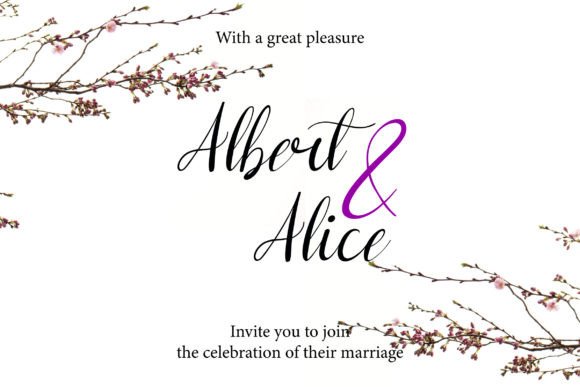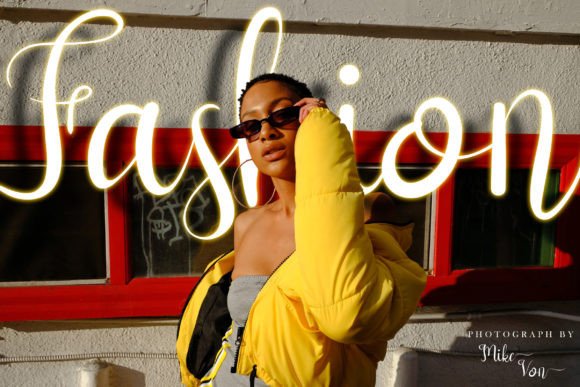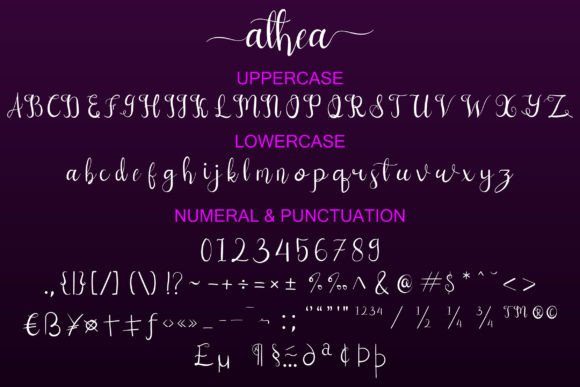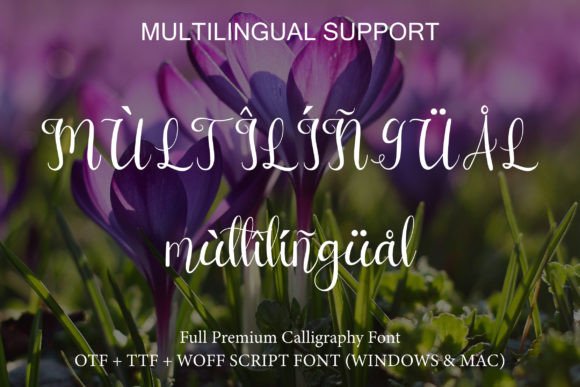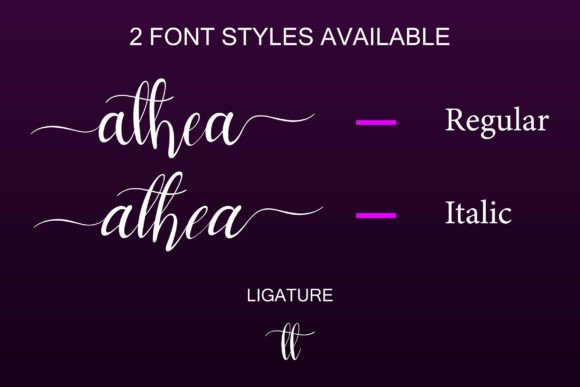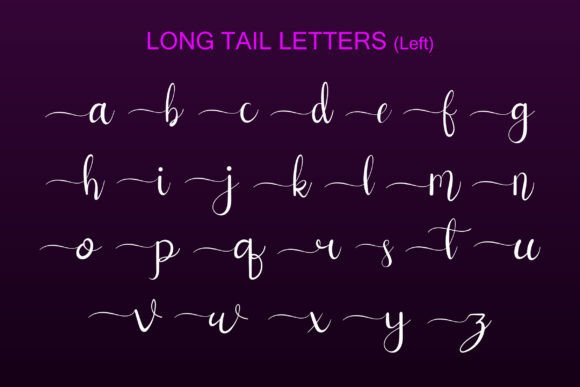
Unleash the Beauty of Handwritten Charm
Have you ever found yourself sitting at your desk, surrounded by papers, pens, and paint, feeling utterly inspired to create something beautiful? For designers, this moment is the spark that sets off a chain reaction of creativity. It’s the moment when the blank page transforms into a canvas waiting to be filled with love, care, and attention to detail.
That’s exactly what the Athea Font is all about – capturing the essence of feminine handwriting and infusing it into your designs. This modern calligraphy script font is perfect for creating lovely, romantic designs that exude warmth and personality. Whether you’re a graphic designer, a stationery enthusiast, or simply someone who loves to create, the Athea Font is a valuable addition to your toolkit.
Athea Font Key Features
- Font Size: 4,000+ glyphs, including Latin, Greek, Cyrillic, and Devanagari scripts
- Unique Characteristics: Includes a wide range of ligatures, swashes, and ornaments for creative typography
- Font Weight: Offers a range of font weights, from light to black, with matching italics
Athea Font Review
I recently had the chance to work with the Athea Font, and I must say it’s a mixed bag. Here’s my honest review:
- Elegant and refined aesthetic: Athea Font has a sophisticated, high-end feel that’s perfect for luxury brands and upscale designs.
- Versatile: It comes in a range of weights and styles, making it suitable for a variety of applications, from headlines to body text.
- Beautiful letterforms: The font’s lettering is smooth, connected, and easy to read, making it a great choice for long blocks of text.
- Limited support for certain languages: Unfortunately, Athea Font doesn’t support many languages beyond English, which can be a problem for multilingual designs.
- Limited customization options: While the font comes in various weights and styles, it’s not particularly customizable, which can make it feel a bit restrictive.
Athea Font is a solid choice for designers who need a high-end, elegant font for their projects. However, its limitations in terms of language support and customization options might be a deal-breaker for some. Overall, I’d give it 3.5 out of 5 stars.
Athea is a versatile font that can be used in a variety of design projects, including:
- Modern logo designs
- Clean and minimalist website designs
- Corporate presentations and reports
- Print materials such as business cards and brochures
Alternatives to Athea Font for Designers
Lato is a sans-serif font that is highly legible and versatile. It is suitable for use in various design projects, including corporate identities, digital products, and publications. Lato is a more modern and sleek alternative to Athea Font, with a larger x-height and more geometric shapes.
Comparison to Athea Font: Lato is more modern and sleek, with a larger x-height, making it more suitable for digital products and modern designs. Athea Font, on the other hand, has a more traditional feel and is better suited for classic or vintage-inspired designs.
Montserrat is a sans-serif font that is inspired by the urban typography of the Montserrat neighborhood in Buenos Aires. It is a highly legible font that is suitable for use in digital products, publications, and corporate identities. Montserrat is a more condensed and geometric alternative to Athea Font, with a stronger emphasis on vertical strokes.
Comparison to Athea Font: Montserrat is more condensed and geometric, with a stronger emphasis on vertical strokes, making it more suitable for digital products and modern designs. Athea Font, on the other hand, has a more traditional feel and is better suited for classic or vintage-inspired designs.